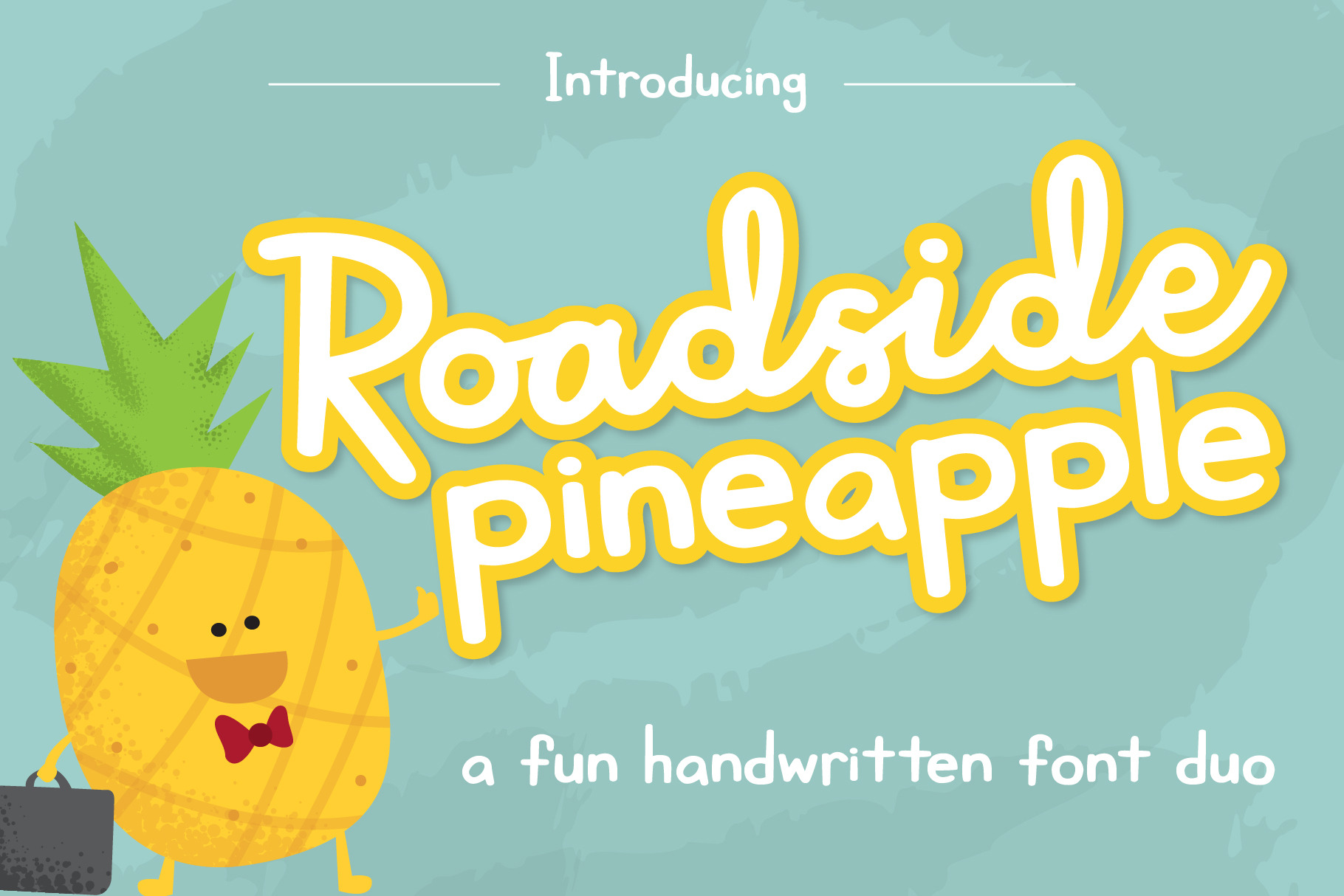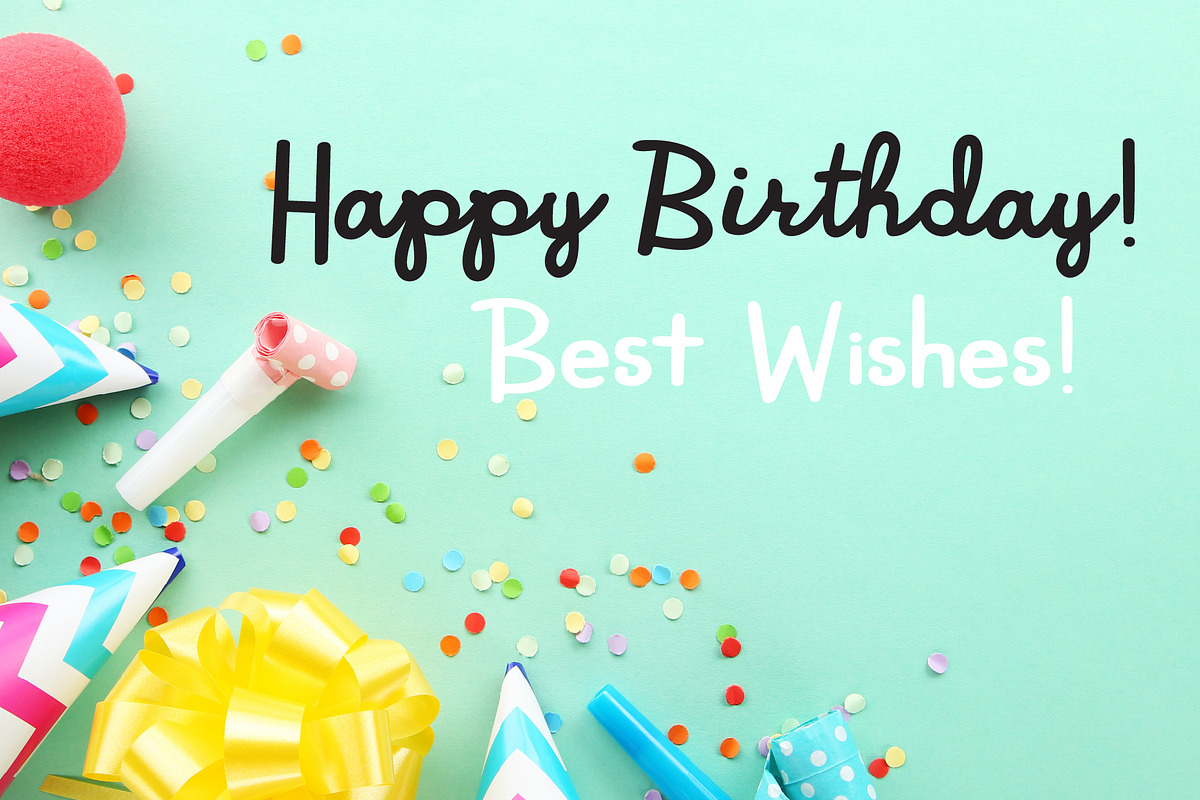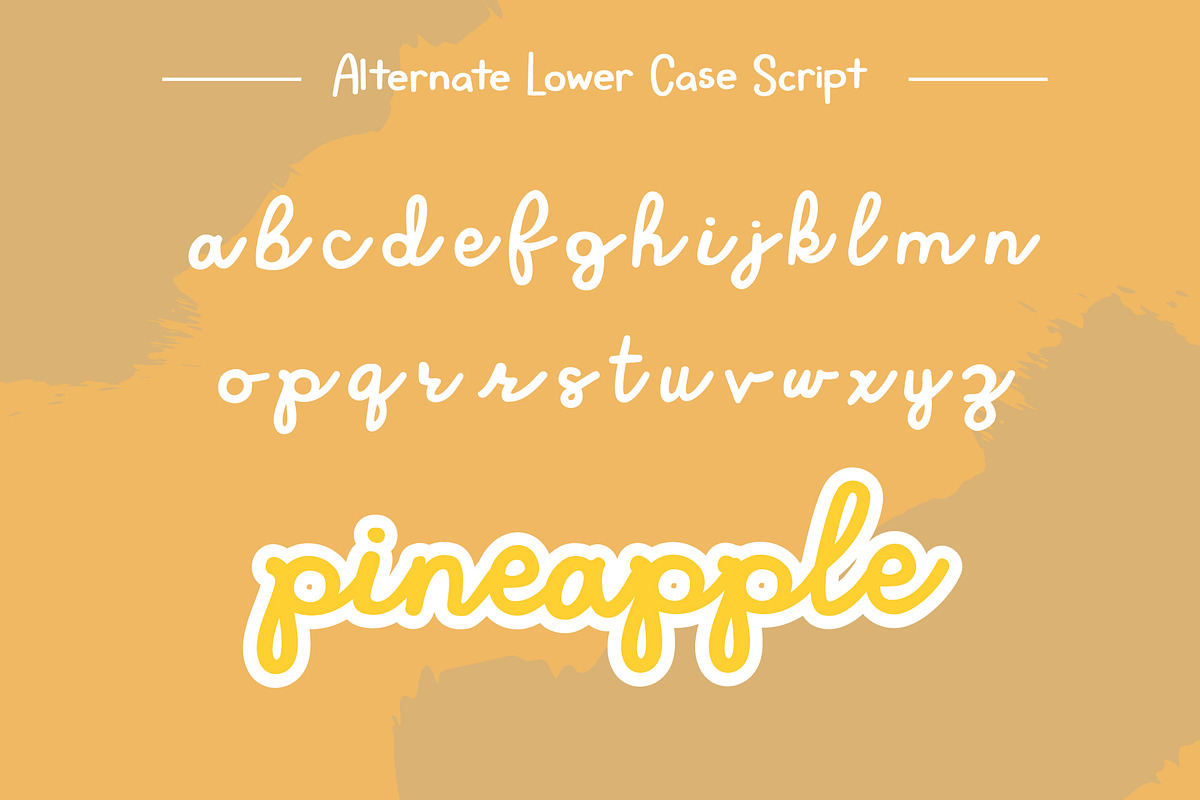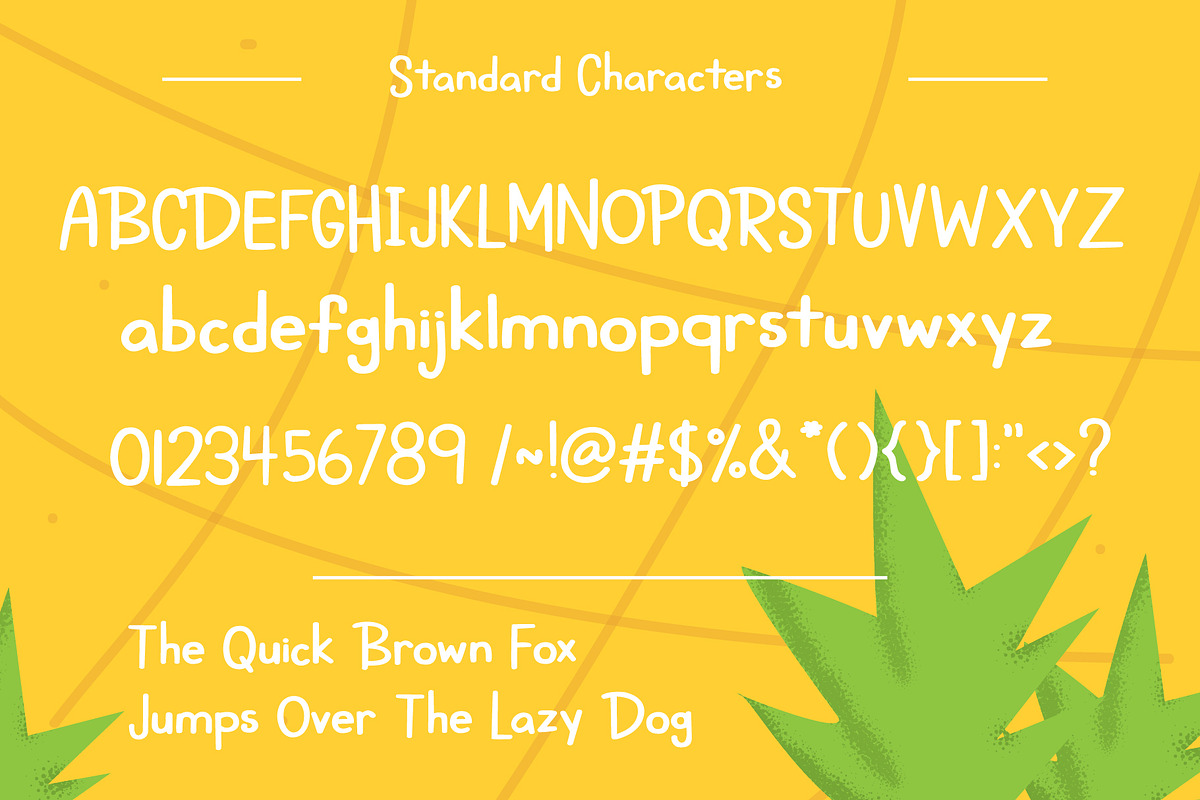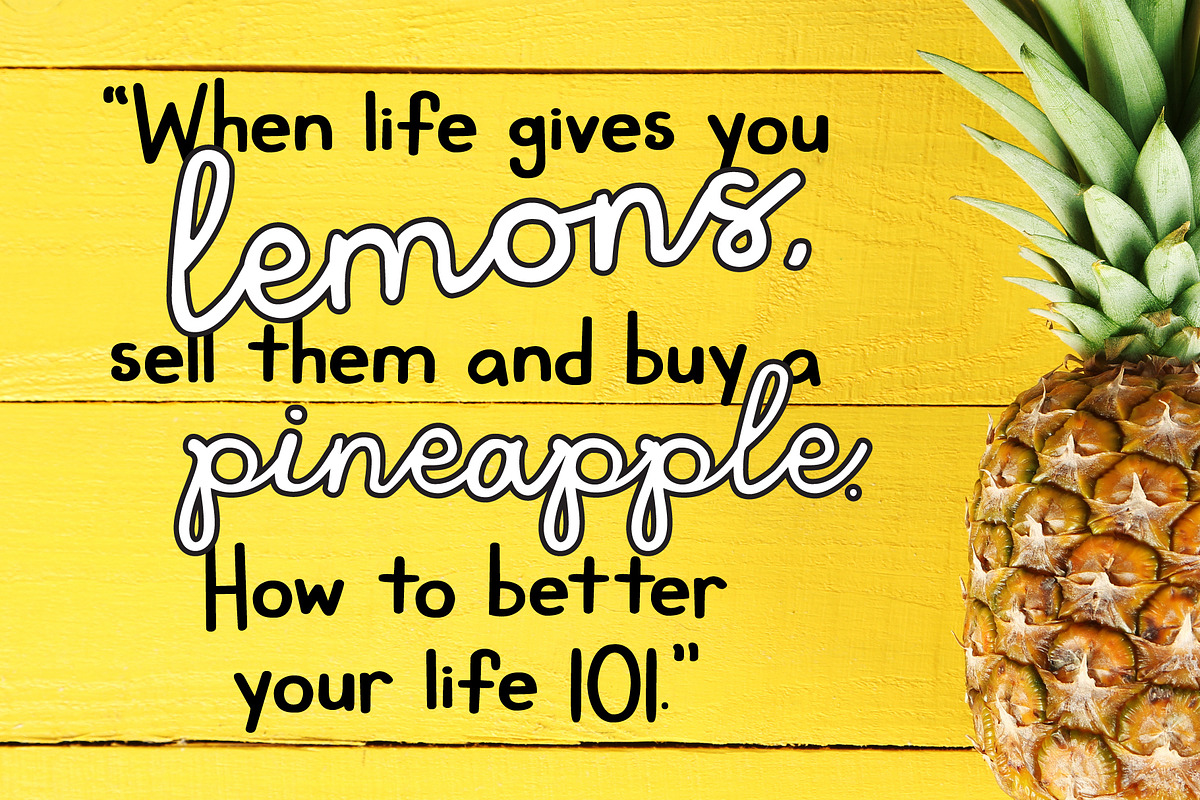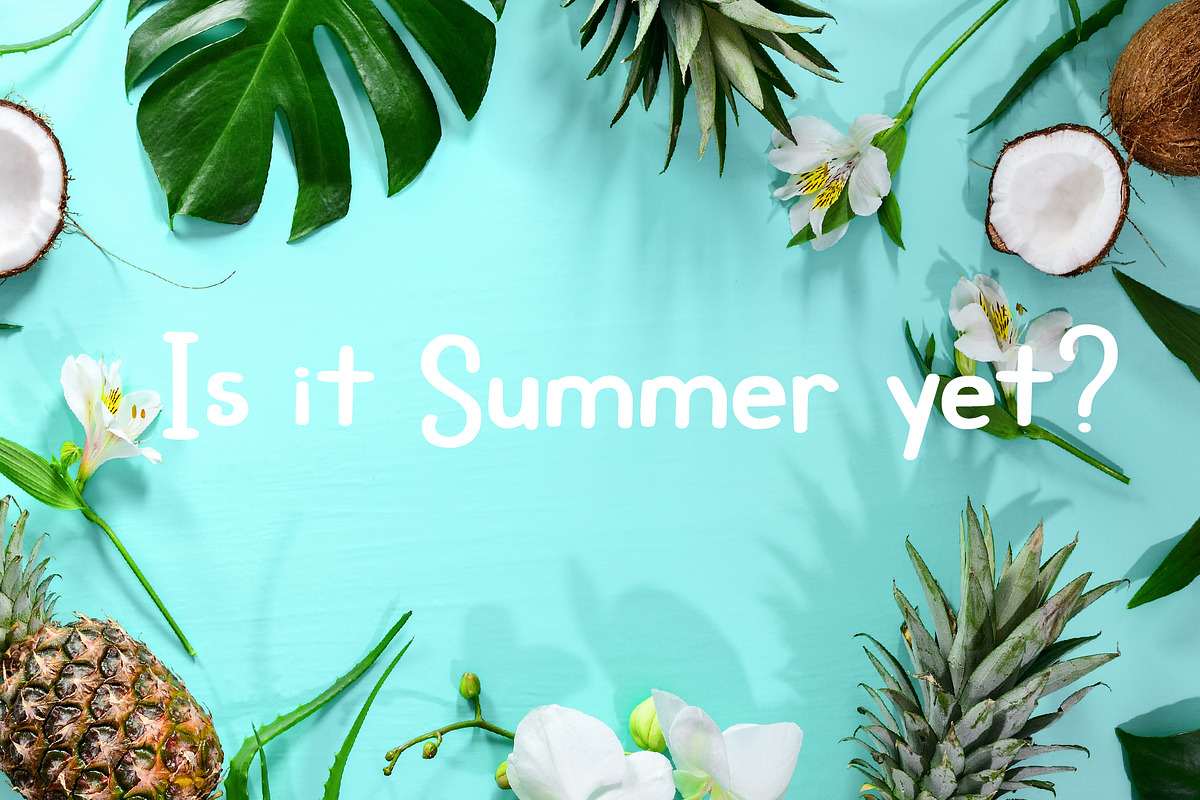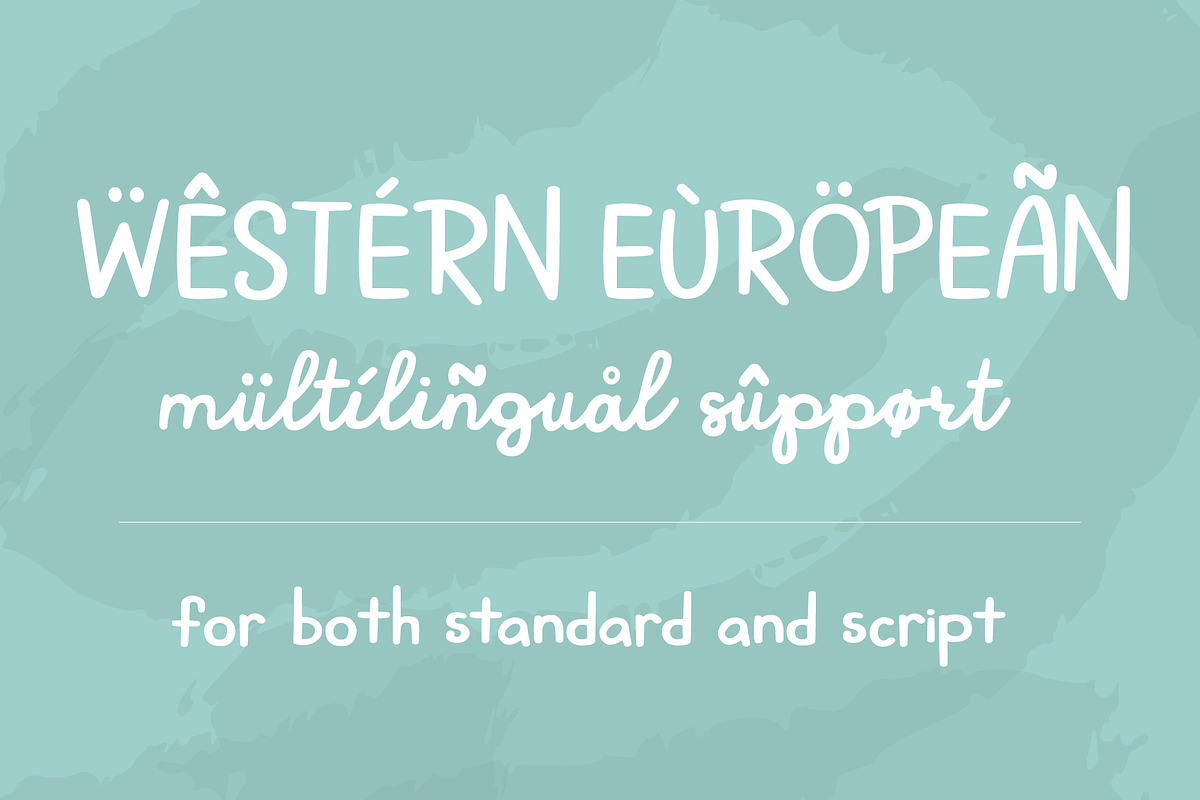
Roadside Pineapple Font Duo
Introducing, Roadside Pineapple. A font that was inspired by me buying pineapple at a fruit stand. Inspirations can come from anywhere apparently. This PUA font is perfect for professional designers, social media, crafters, and children book writers.